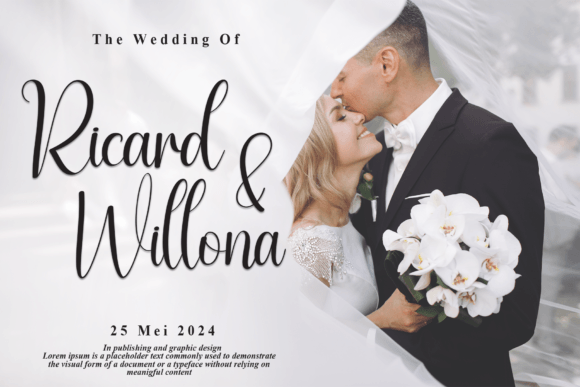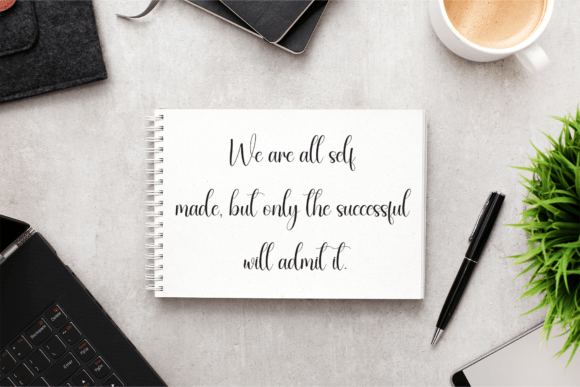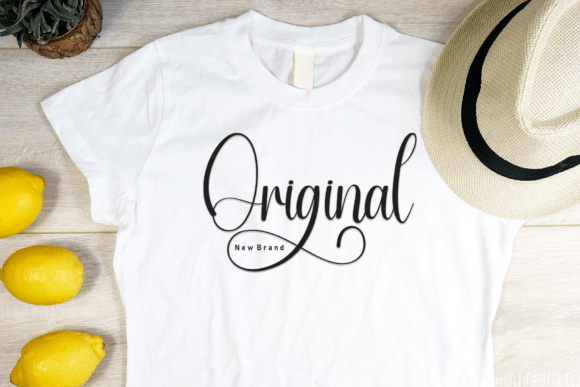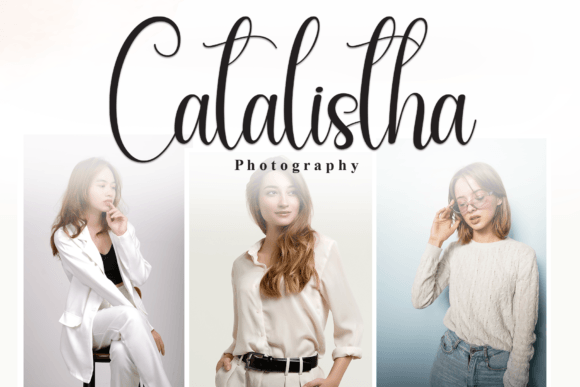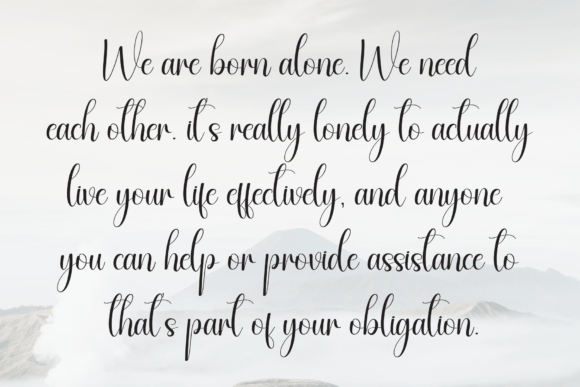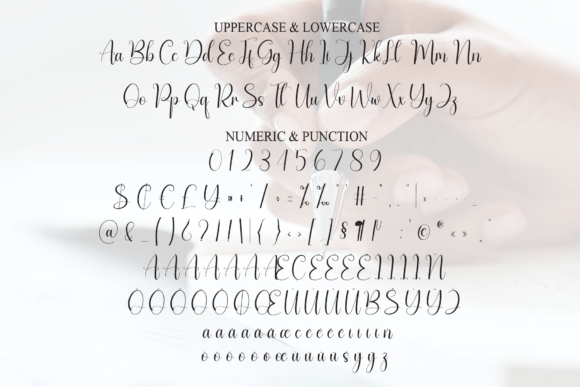
Unleash the Art of Handwritten Elegance with Autography Font
As a designer, have you ever found yourself pouring over a blank page, searching for the perfect font to bring your vision to life? For me, that moment often comes when working on a high-end packaging project or crafting a brand identity that exudes sophistication and style. It’s in these moments that I turn to Autography Font, a modern handwritten font that effortlessly combines elegance with a touch of whimsy.
Autography Font is more than just a typeface – it’s a tool that allows designers to infuse their work with a bespoke, artisanal feel. Its fluid, organic strokes and refined letterforms make it the perfect choice for upscale designs, from packaging and branding to editorial projects. Whether you’re working on a luxury lifestyle magazine or creating a premium product line, Autography Font is sure to elevate your design to the next level.
Autography Font Key Features
- Font Family: Autography Font is a unique, handwritten font designed for various creative applications.
- Unique Characteristics: Features a personal, handwritten touch, perfect for creating a unique and emotional connection with the audience.
- Font Style: Available in multiple styles, including regular, bold, italic, and bold italic, providing versatility for various design needs.
Designer Review: Autography Font
Overall, I was pleasantly surprised by the Autography font. It’s a great choice for designers looking to add a touch of elegance and sophistication to their projects. Here are some things that work well:
- ✨ The font’s versatility: Autography can be used for both formal and informal projects, making it a great all-around choice.
- ✨ The clean and modern design: The font’s sleek lines and minimalist aesthetic make it perfect for contemporary designs.
- ✨ The wide range of weights and styles: Autography offers a variety of weights and styles to choose from, giving designers plenty of options for customization.
- ⚠️ The font may not be suitable for very small text sizes: At very small sizes, the font can become difficult to read.
- ⚠️ The font may not be as effective for highly technical or scientific content: The font’s clean and modern design may not be the best choice for projects that require a more technical or scientific tone.
Overall, I would recommend Autography font to designers looking for a versatile and elegant font. While it may have some limitations, the benefits far outweigh the drawbacks.
The Autography Font is ideal for creating:
– Personalized signatures
– Custom invitations
– Branding materials
– Blog post headings
Tips for Getting the Most Out of Autography Font
To get the most out of the Autography Font, experiment with different combinations of font styles, colors, and sizes to create a unique look. Use it to add a personal touch to your designs and stand out from the crowd.
Comparison to Autography Font: Pacifico has a more refined and polished look compared to Autography Font, making it a better choice for high-end designs. However, Autography Font has a more rustic and handwritten feel that may be more suitable for casual or vintage-inspired designs.